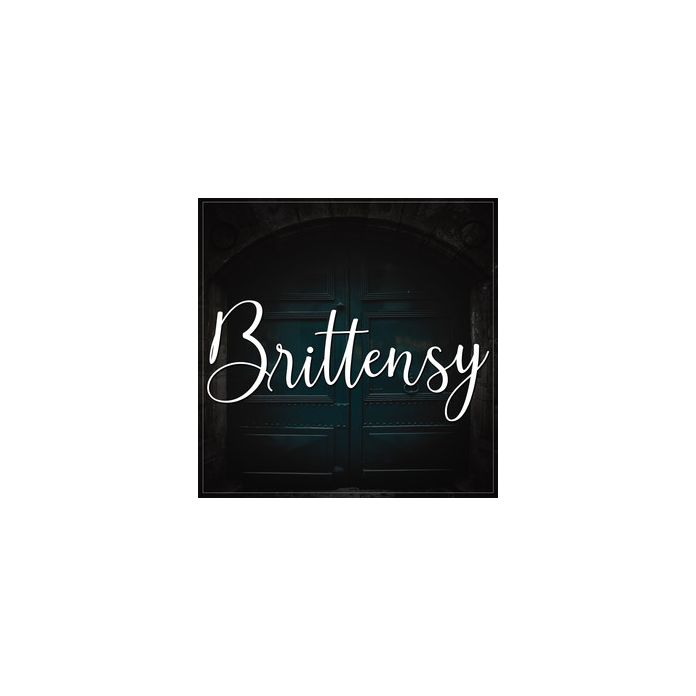
brittensy font
The Brittensy is a modern calligraphy script. It has an elegant style which can be used to give your design a feminine feel. Total glyph count: 400